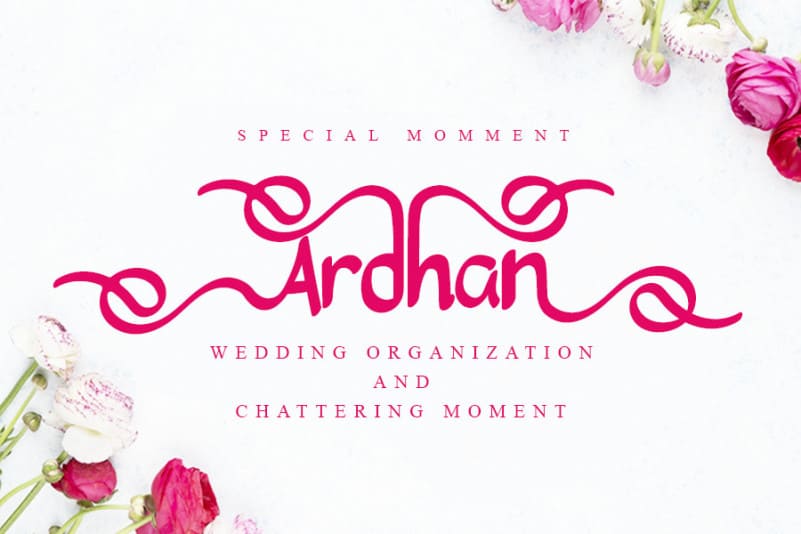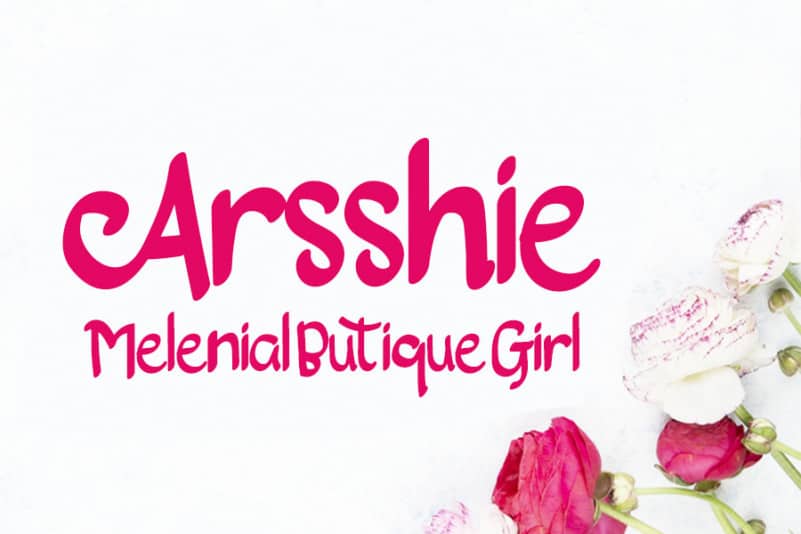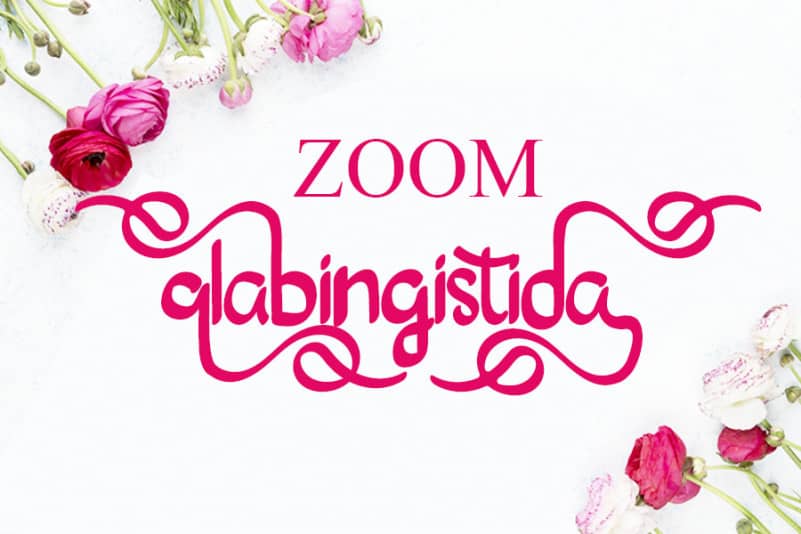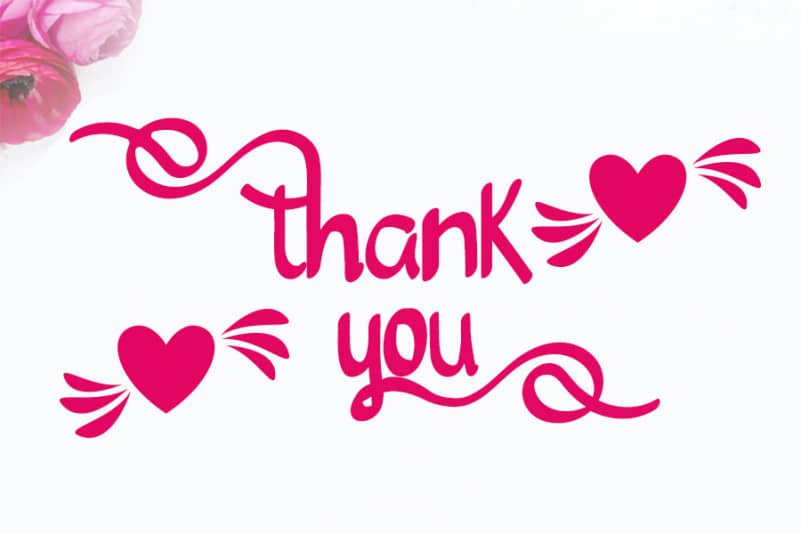
Bendhara Script Font
Bendhara Script Font is a great  Script Font. It maintains its classy calligraphic influences while feeling contemporary and fresh. This versatility will appeal to a wide range of crafty ideas, from letterheads and titles to stationery.